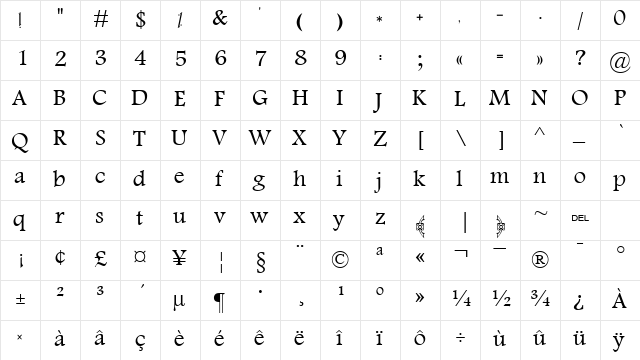
khalaad Abeer Font Preview
khalaad Abeer khalaad Abeer
Design Context for khalaad Abeer Typeface
khalaad Abeer is a composed and adaptable typeface that performs quietly and consistently across a wide range of design contexts.